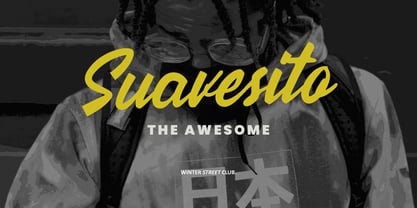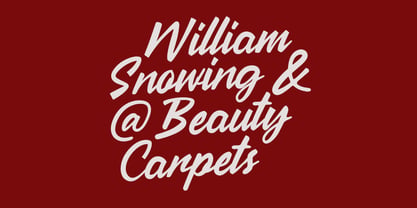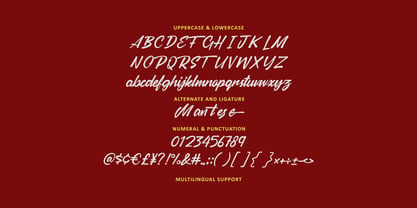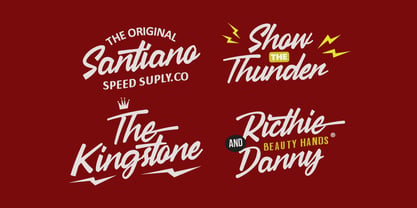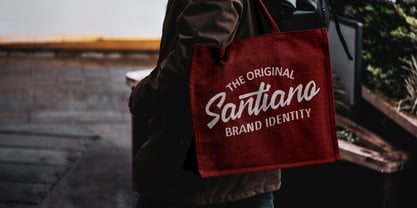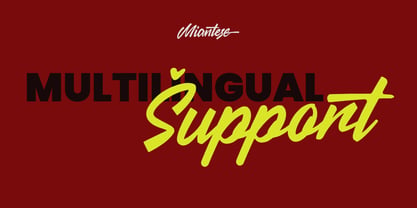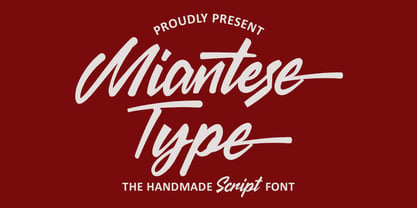
MC Miantese
by Maulana Creative
The MC Miantese Font Family was designed by Gilang Maulana and published by Maulana Creative. MC Miantese contains 1 styles. More about this family
Miantese is a handmade script display handwritten font. With bold stroke, fun character with a bit of alternate and ligature. To give you an extra creative work. Miantese font support multilingual more than 100+ language. This font is good for logo design, Social media, Movie Titles, Books Titles, a short text even a long text letter and good for your secondary text font with sans or serif. Make a stunning work with Miantese font.
Designers: Gilang Maulana
Foundry: Maulana Creative